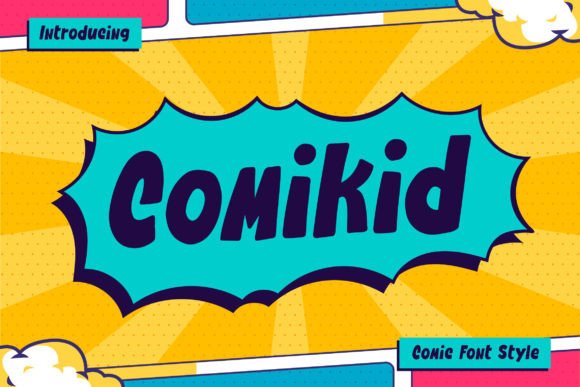
Embark on a typographic adventure with Comikid Font, a display font bursting with personality and charm. Designed by the skilled artisans at TypeFactory, Comikid is not just a font; it's an artistic expression waiting to transform your designs into captivating masterpieces.
Immerse yourself in the world of dance with Comikid, a font that effortlessly captures the energy and grace of movement. Its playful characters dance across the screen, inviting you to create posters that burst with rhythm and vibrancy. Whether you're designing for a dance studio, a ballet performance, or a hip-hop festival, Comikid will elevate your designs to new heights.
Harnessing the power of simplicity, Comikid's clean lines and distinct shapes make it a versatile choice for a multitude of design projects. Unleash your creativity and let Comikid add a touch of whimsy to your invitations, social media posts, or product packaging. Its playful nature is sure to leave a lasting impression, making your designs impossible to ignore.
Step into a world of boundless imagination with Comikid, where your designs take center stage. Let its unique style captivate your audience, leaving them mesmerized by the sheer brilliance of your creations. Comikid is more than just a font; it's an open invitation to explore the extraordinary and make your designs shine brighter than ever before. Embrace the magic of Comikid today and witness the transformation of your designs into works of art.